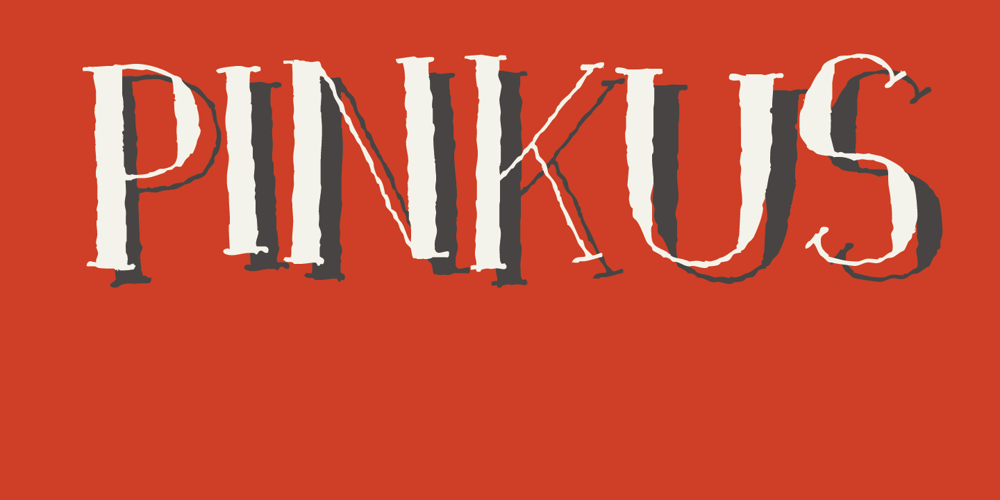
Pinkus Font Family was designed by David Kerkhoff and published by Hanoded. Pinkus contains 1 styles and family package options. Pinkus is a nice, uncomplicated serif font. It was hand drawn on plain white copy paper, hence the roughness. Pinkus is an all-caps affair, but upper and lower case letters can be interchanged. Pinkus can be used on posters, postcards, books, magazines and whatever else you fancy. Enjoy!